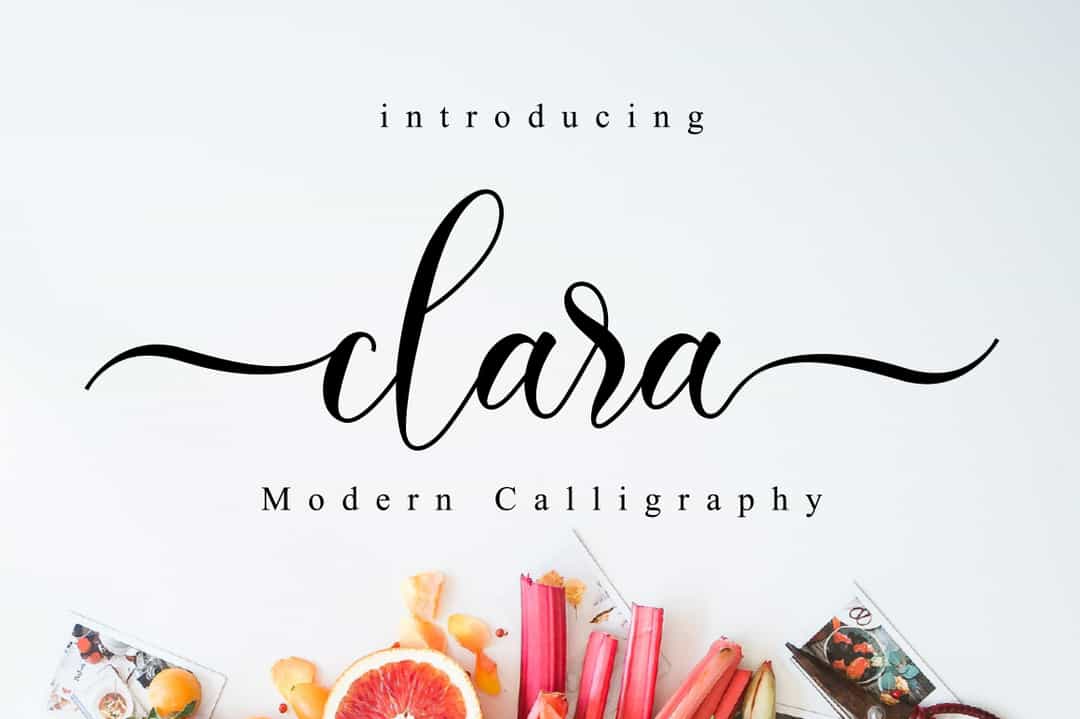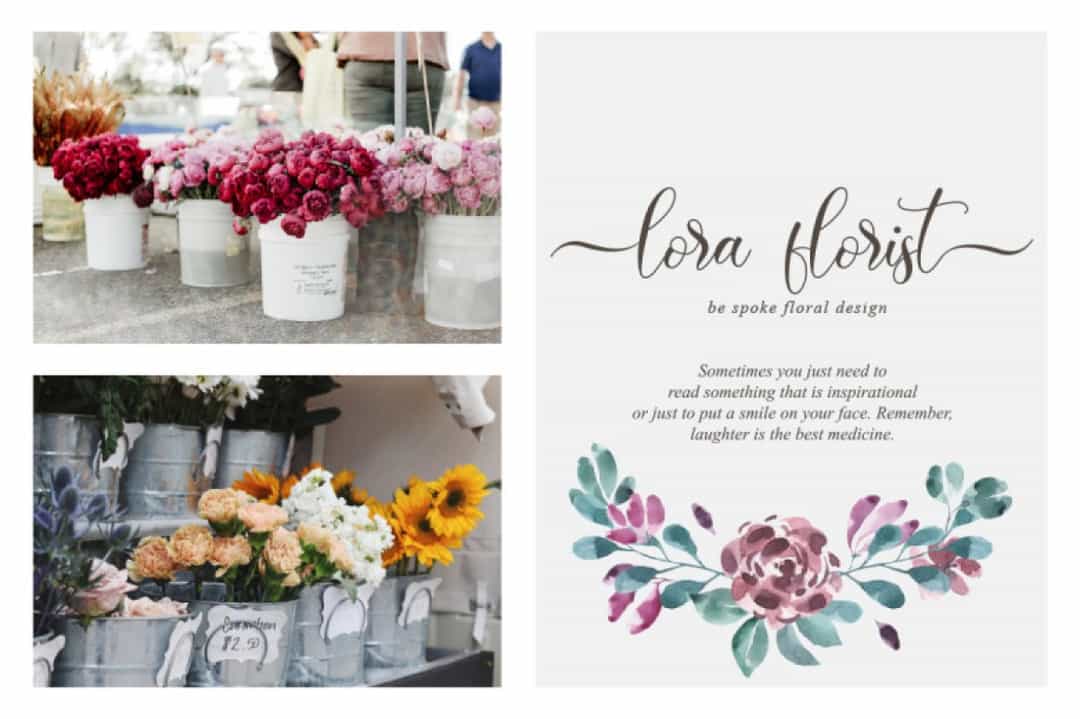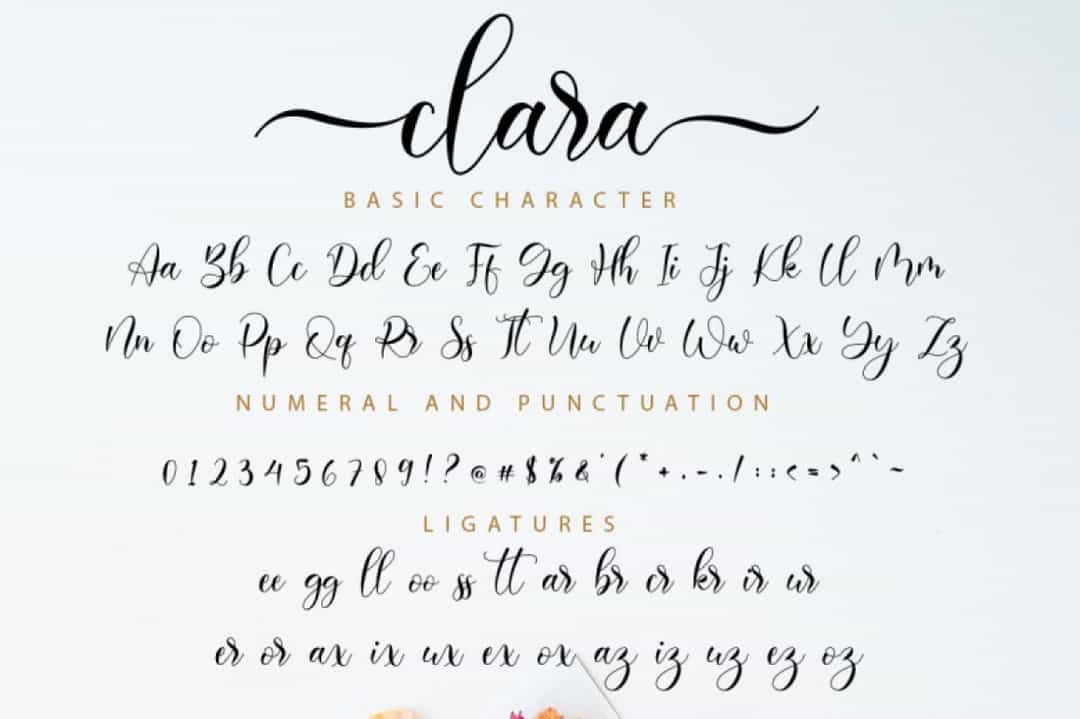
Clara is a copperplate calligraphy script font that has an elegant look and it can be considered as a luxury. This font is perfect for your next creative projects like watermark on photography, quotes, album cover, logotype, business card and many other design project.